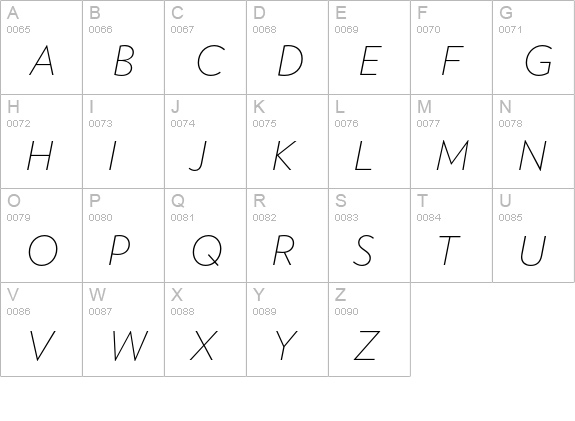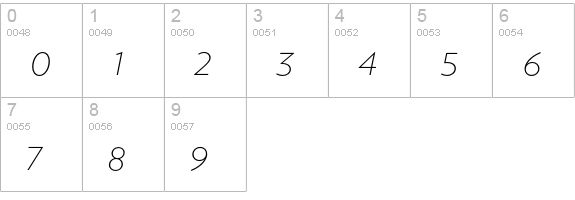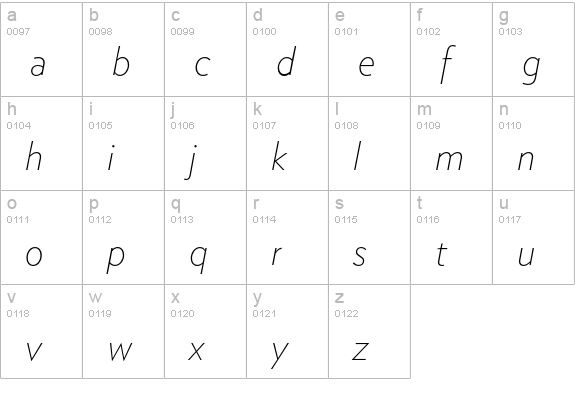
Verlag XLight Italic Font Details
Verlag XLight Italic is a distinctive, italic variant in the Verlag typeface family \xE2\x80\x94 well suited to design and typography projects.
Verlag XLight Italic font is a sleek and elegant typeface that exudes sophistication and modernity. With its delicate and slanted design, this font brings a touch of grace and style to any project it is used in. The italicized version of Verlag XLight adds a dynamic and flowing quality to text, making it perfect for conveying a sense of movement and energy. What sets Verlag XLight Italic apart is that it is not only beautifully crafted, but it is also available for free download at FontsMarket.com. This means that you can easily access and use this stunning font in your designs without any cost involved. Whether you are working on a branding project, a website design, or any other creative endeavor, Verlag XLight Italic will help you achieve a polished and professional look. Don't miss out on the opportunity to enhance your designs with the exquisite Verlag XLight Italic font. Download it for free today and elevate your typographic creations to new heights.